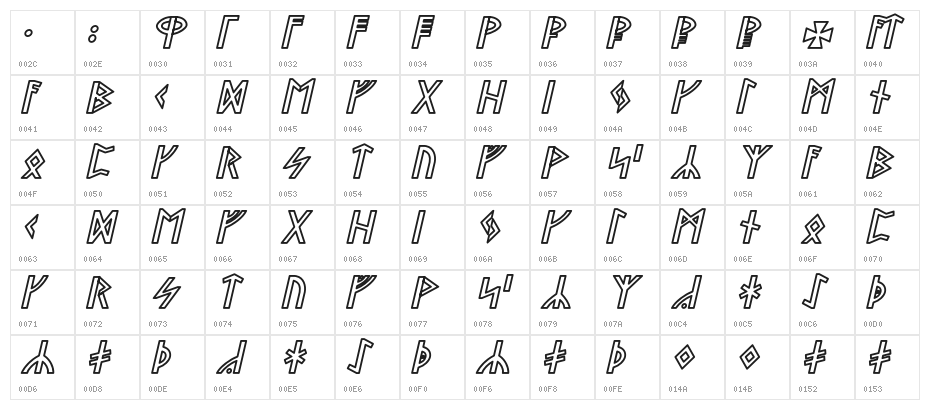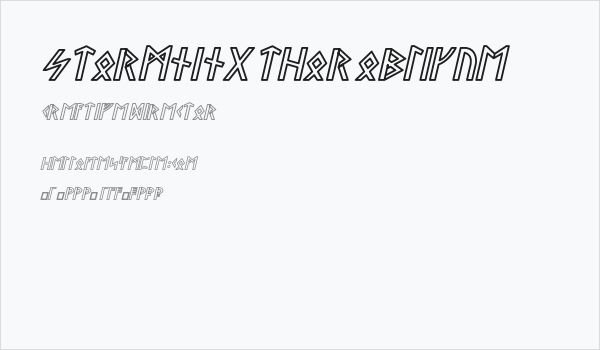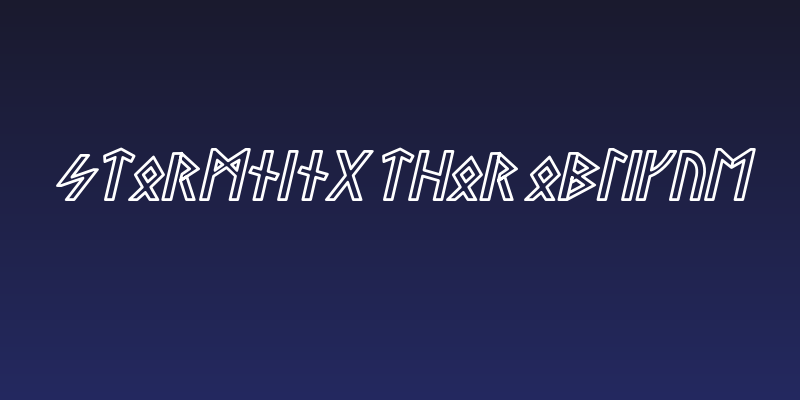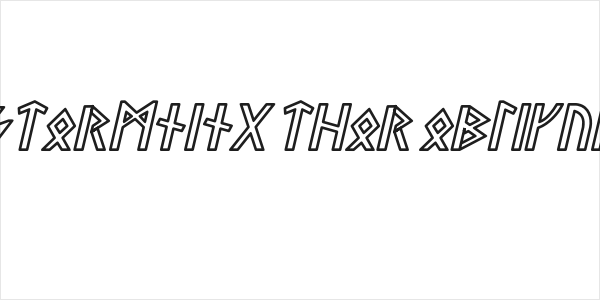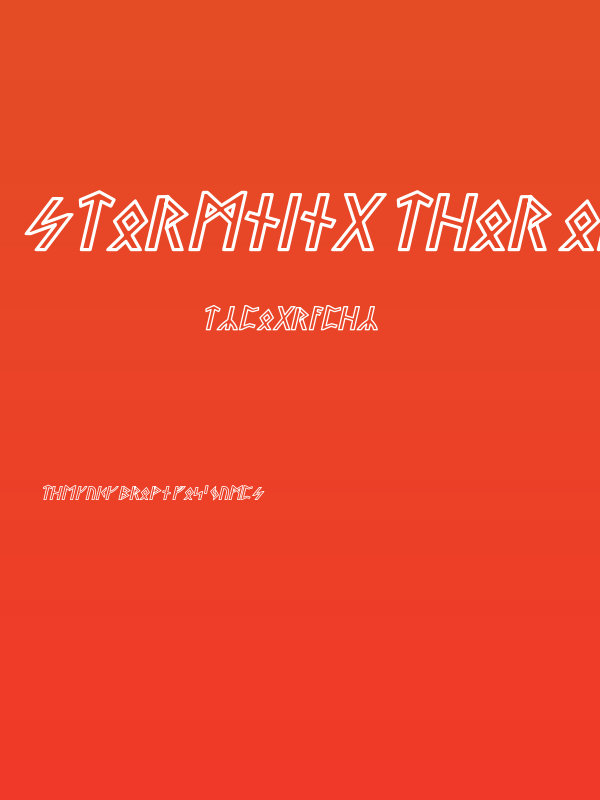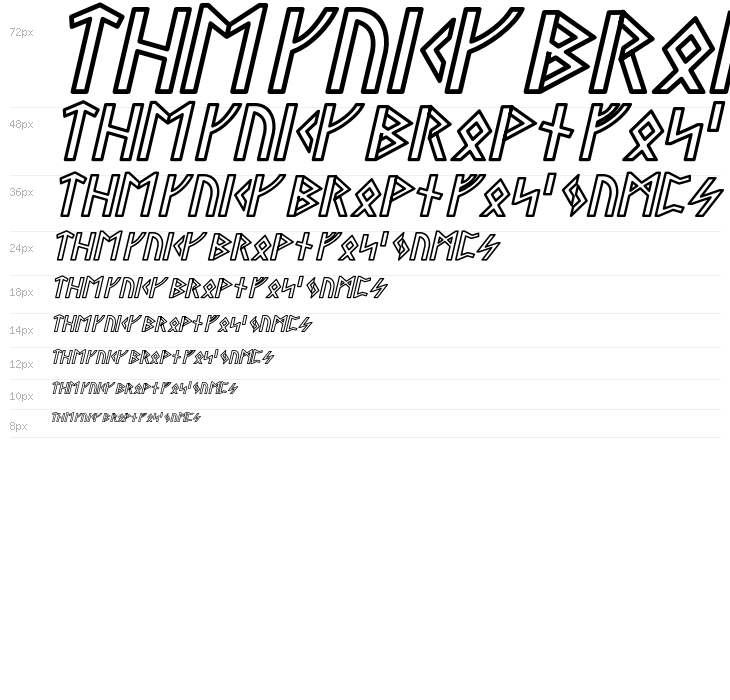
Stormning Thor Oblique Font
Stormning Thor Oblique Description
This font features a bold and angular design, reminiscent of ancient runic alphabets. Each character is crafted with sharp, geometric lines that convey a sense of strength and power. The uppercase letters are particularly striking, with unique shapes that stand out. The lowercase letters maintain the same angular style, ensuring consistency throughout the typeface. Numbers and special characters are designed to match the overall aesthetic, making them suitable for thematic projects. The font's oblique nature adds a dynamic and forward-moving feel, enhancing its bold appearance. This typeface is ideal for projects that require a strong, impactful visual presence.
| Proposed Projects | Perfect for fantasy-themed designs, video game titles, movie posters, and branding for products that emphasize strength and power. |